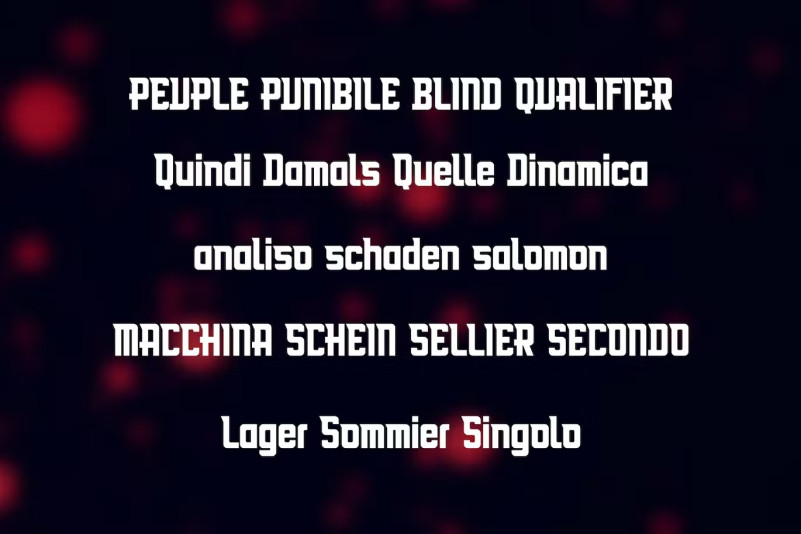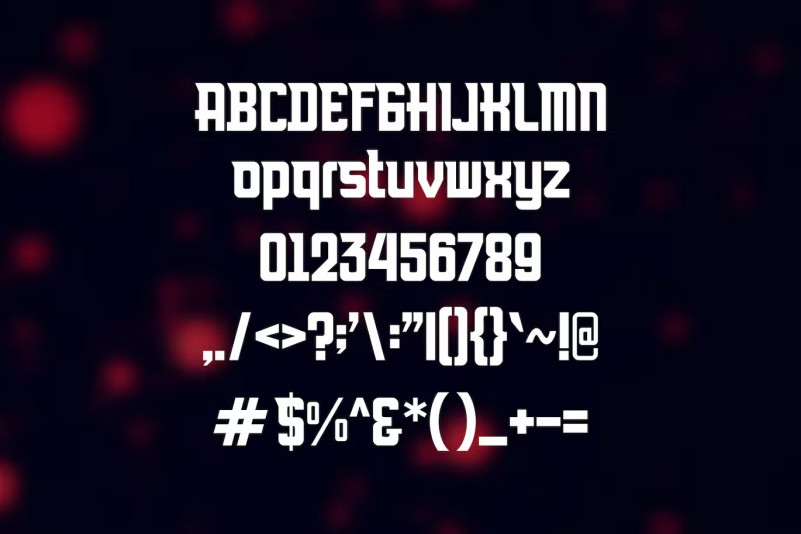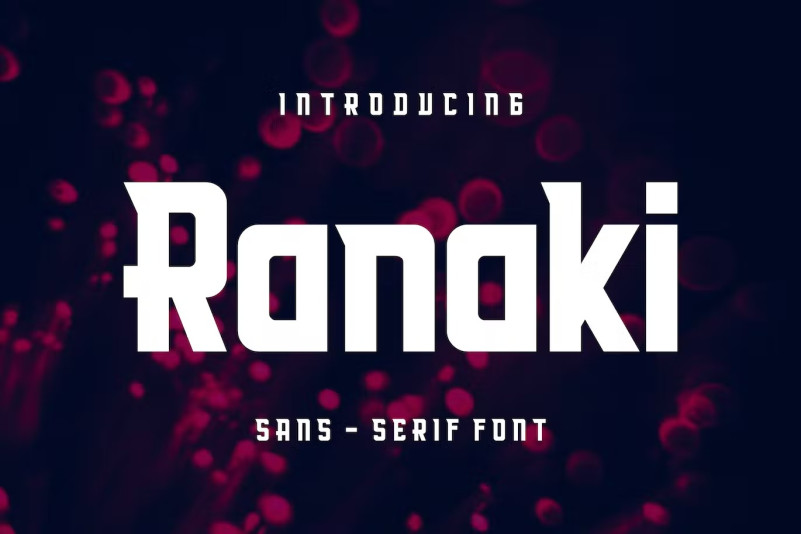
Ranaki Font
Ranaki Sans Serif Font, Perfectly suitable for print or screen. It is perfect for branding, business cards, posters, Logo, magazines, cover, banner, t-shirt and headers, or even large scale artwork.